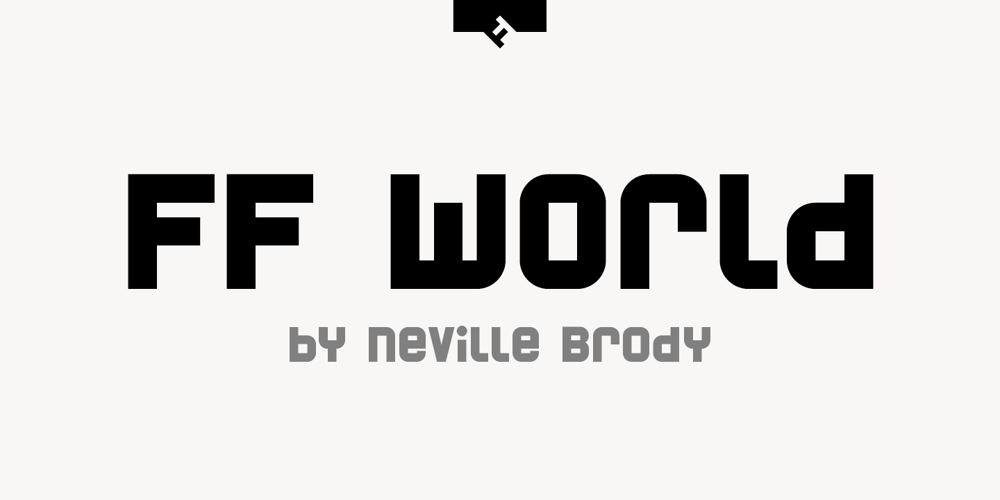
FF World
FF World font
FF World Font Family was designed by Neville Brody and published by FontFont. FF World contains 3 styles and family package options. British type designer Neville Brody created this display FontFont in 1993. The family contains 3 weights and is ideally suited for poster and billboards and sports. FF World provides advanced typographical support with features such as ligatures. It comes with proportional lining figures.